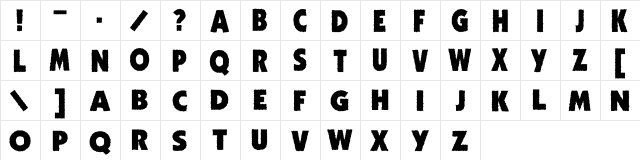
Zhukov Zippo Regular
Design Context for Zhukov Zippo Typeface
Zhukov Zippo offers clean, dependable letterforms without strong stylistic allegiance, making it a practical choice for designers who need flexibility.